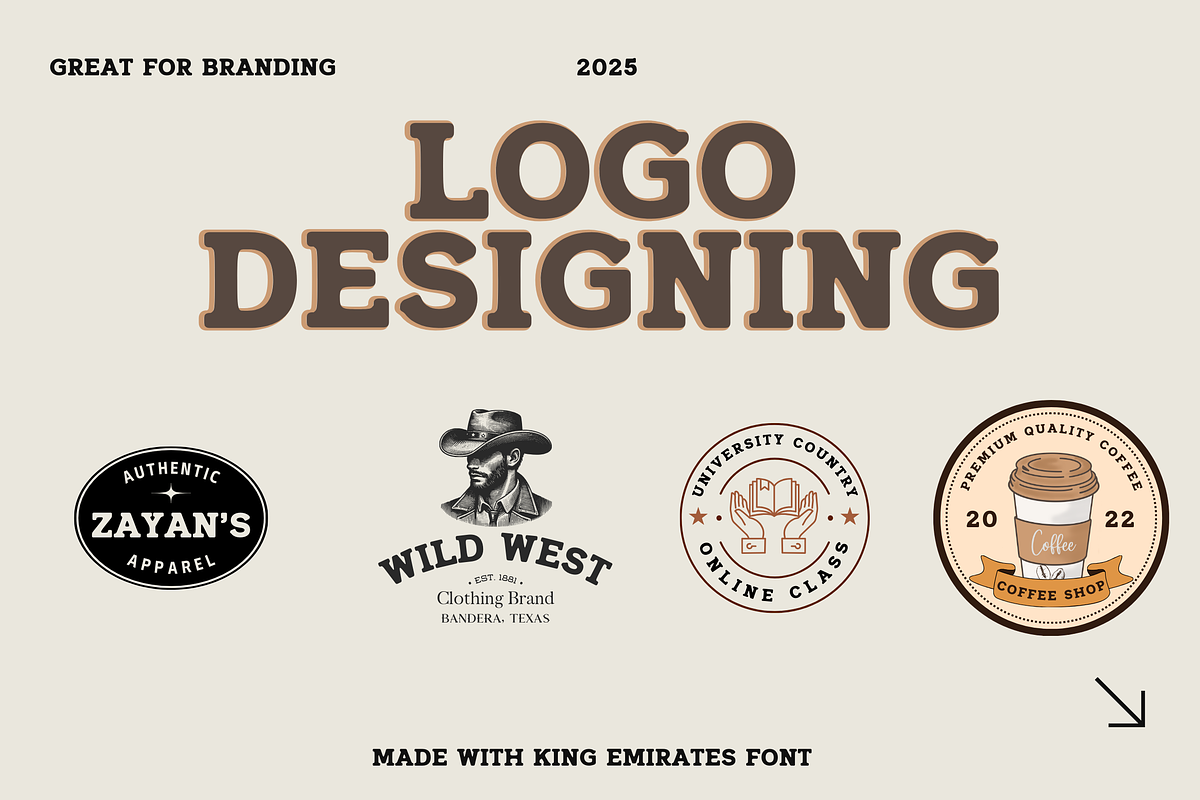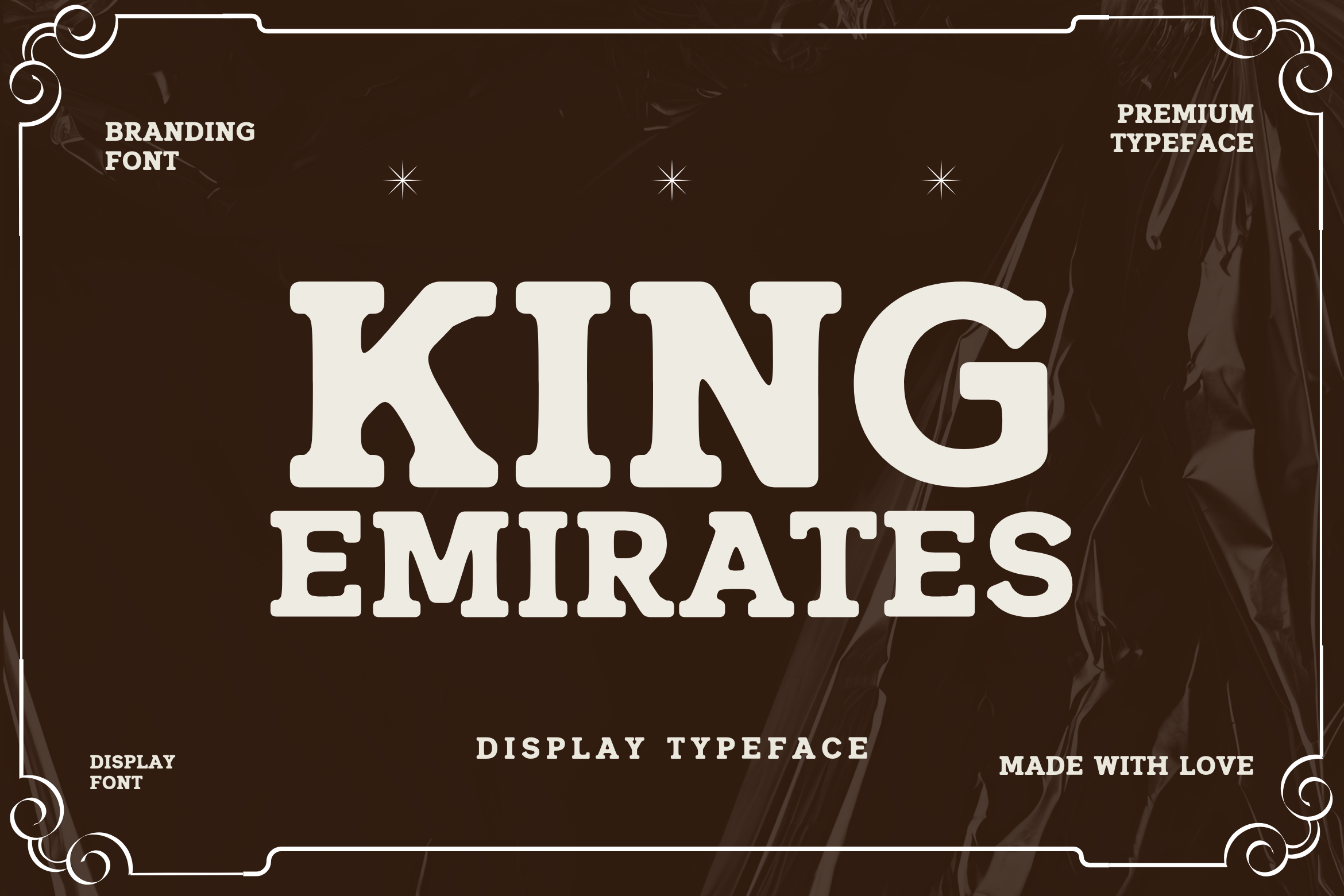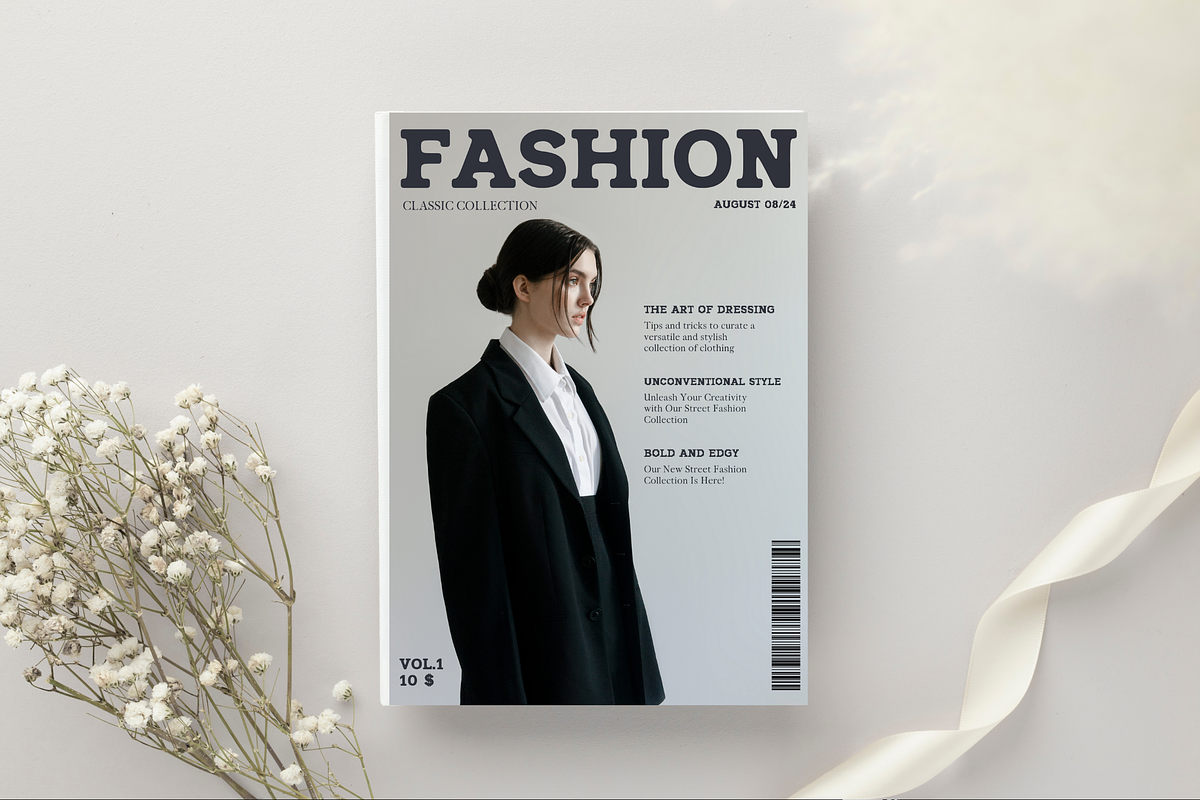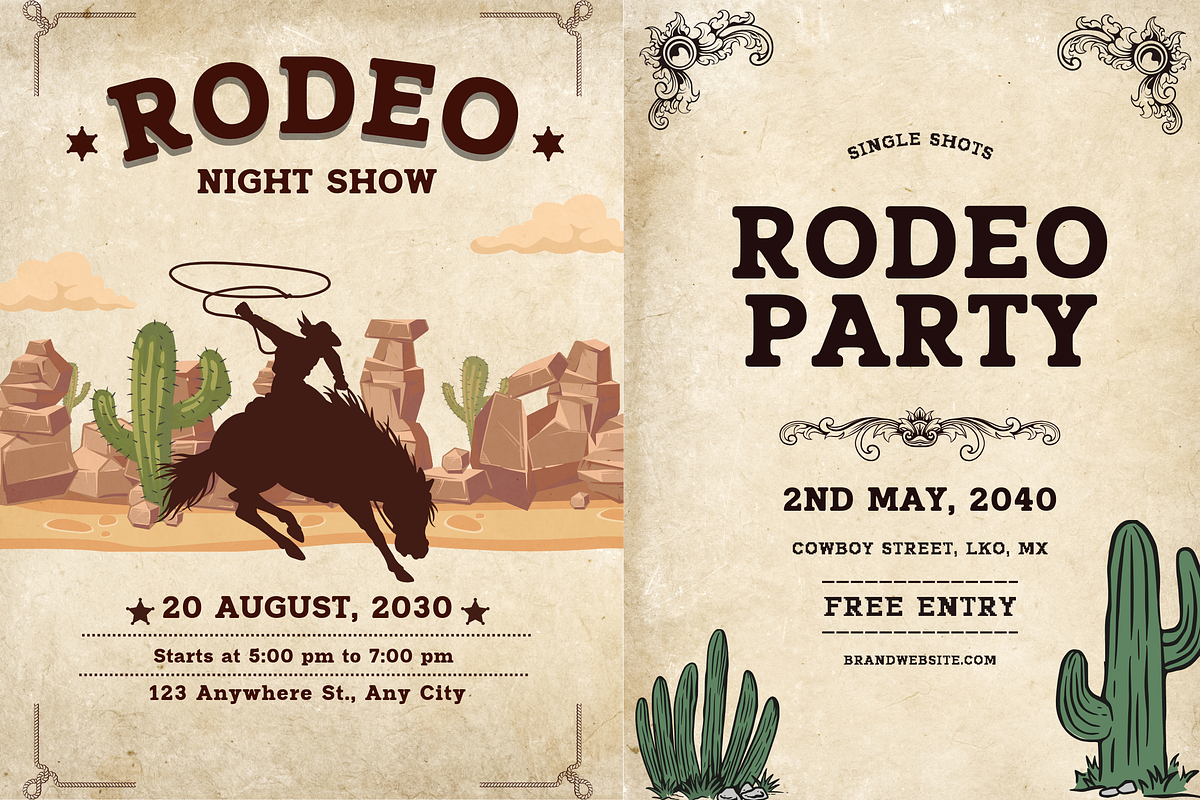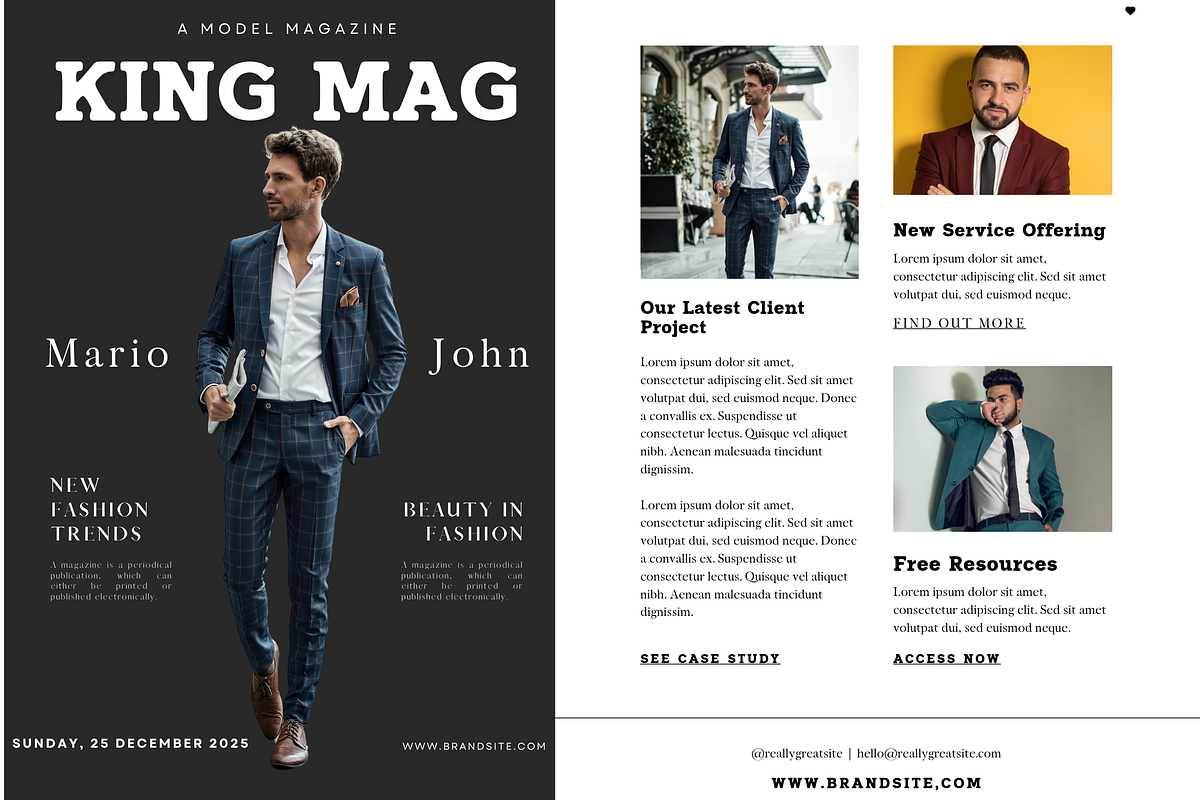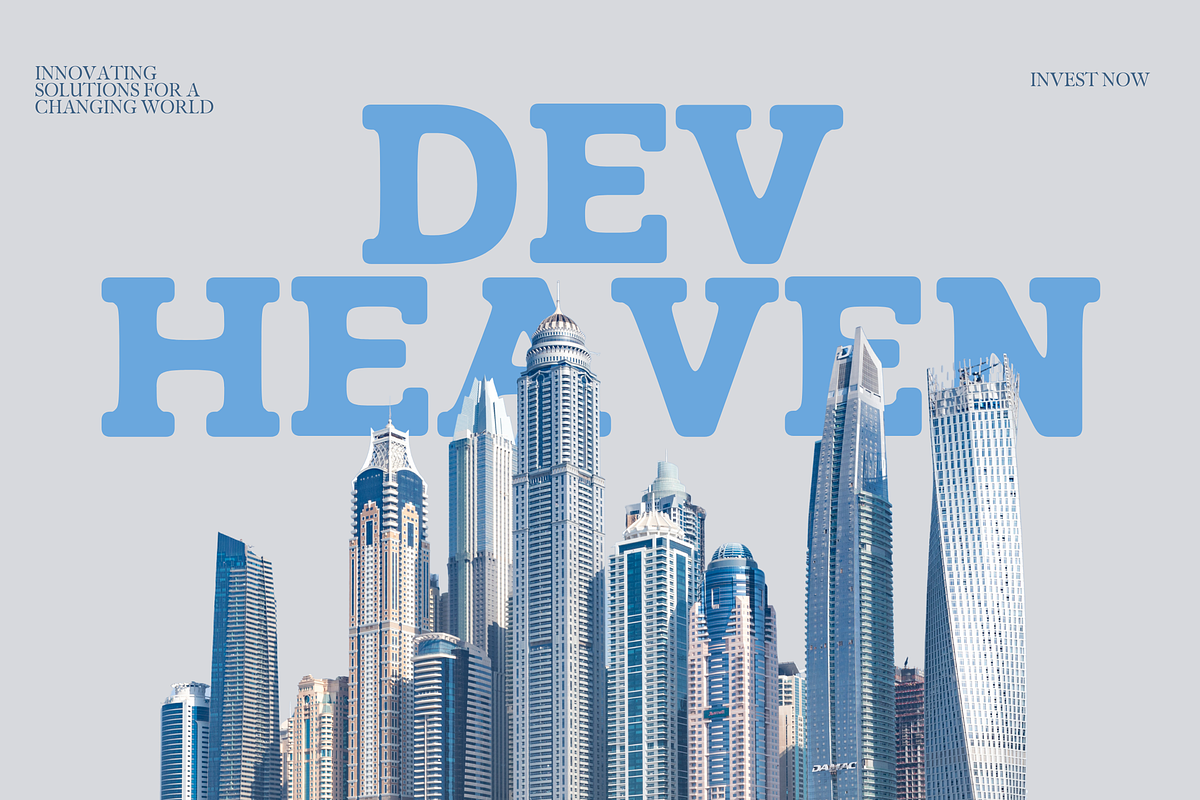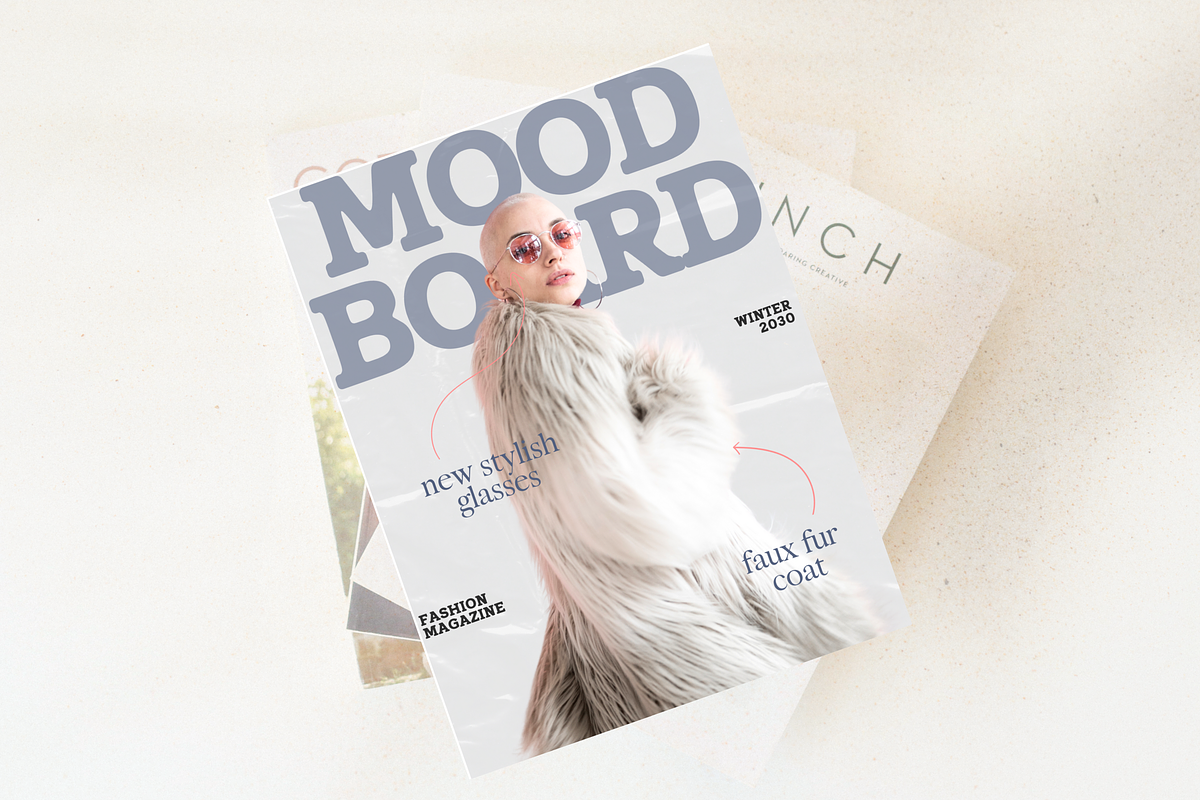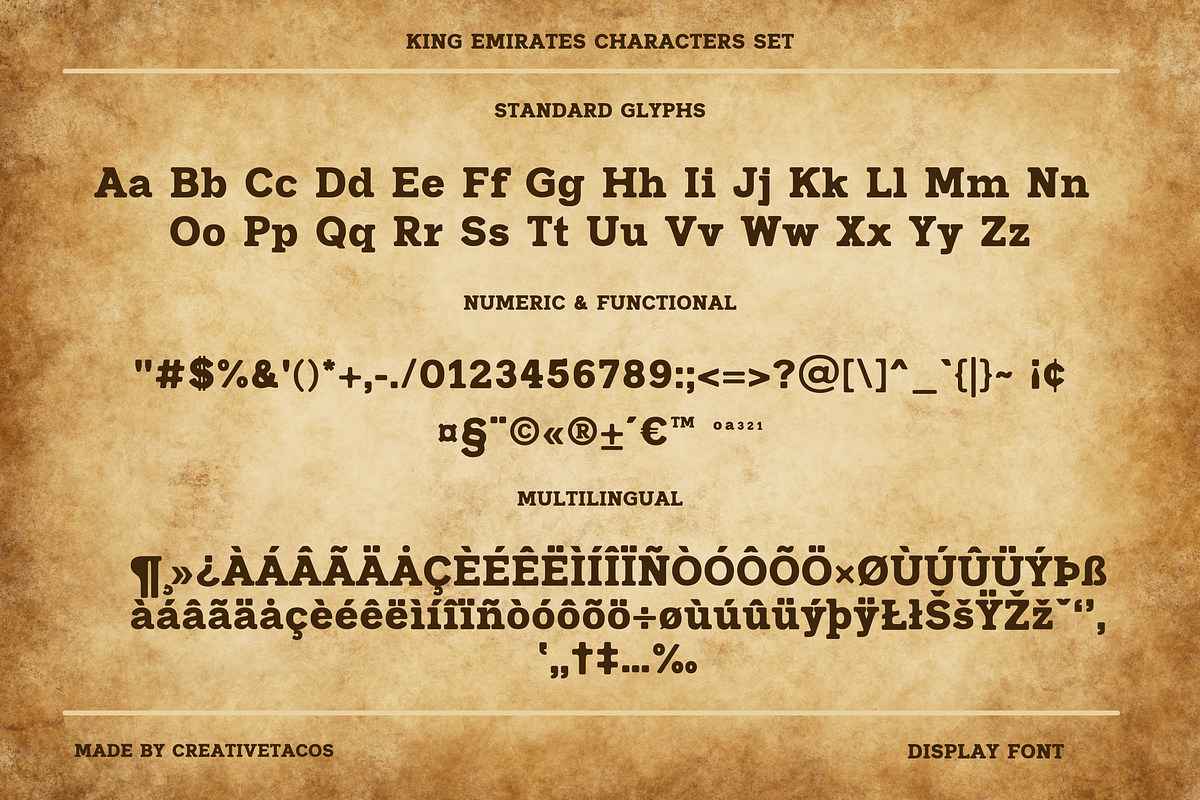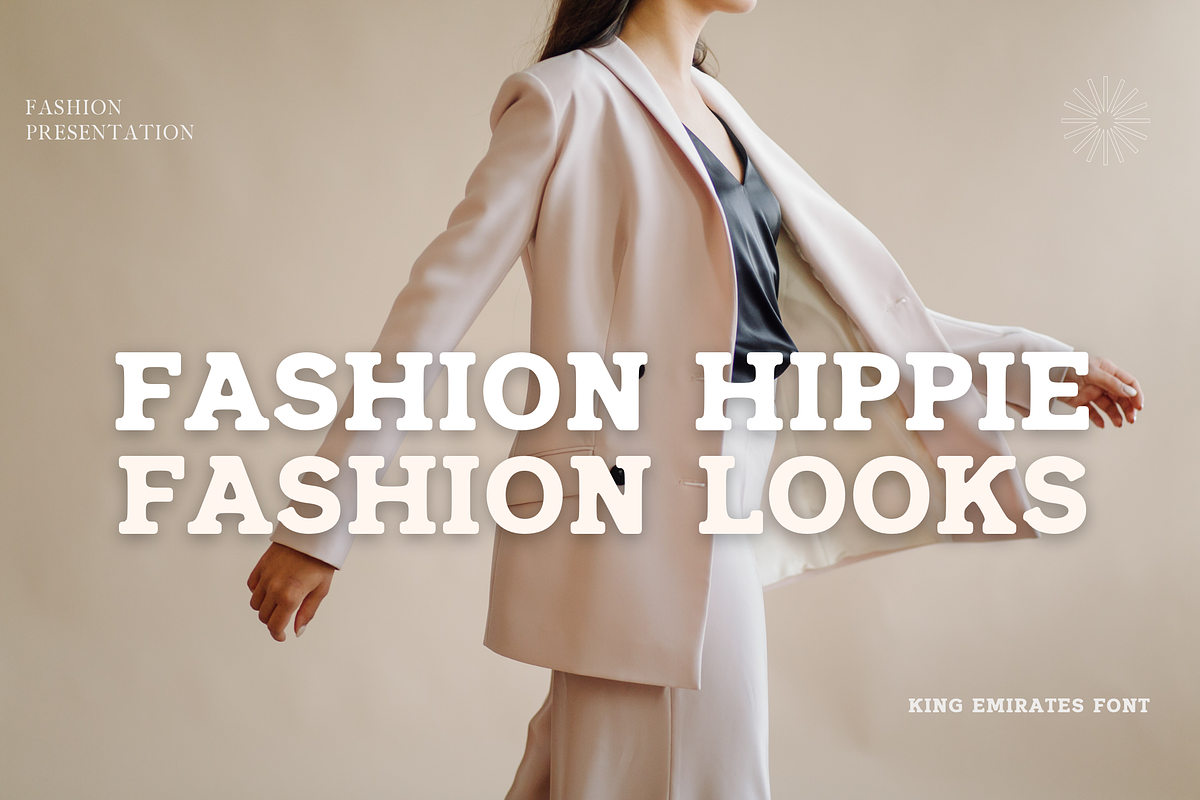
King Emirates Font
A premium slab serif font designed for sophisticated branding with vintage charm. KING EMIRATES combines robust letterforms with elegant proportions, creating a typeface that's perfect for luxury brands, hospitality ventures, and designers seeking to evoke heritage with a contemporary twist.
- Refined Slab Serif Design: Substantial yet elegant letterforms that convey stability and tradition
- Complete Character Set: Standard glyphs, numerals, functional characters, and extensive multilingual support
- Versatile Applications: Ideal for luxury branding, restaurant menus, hotel signage, packaging design, and vintage-inspired projects
- Distinctive Personality: Bold character with sophisticated details that maintain excellent readability
- Meticulous Construction: Carefully balanced proportions with attention to spacing and kerning
- Standard alphanumeric glyphs (A-Z, a-z, 0-9)
- Numeric & functional characters for comprehensive design flexibility
- Multilingual support with extensive diacritic marks
- Punctuation and special characters
KING EMIRATES FONT doesn't merely suggest luxury—it embodies it with thoughtful typographic details and a warm, aged aesthetic. Each character is crafted to maintain clarity while delivering the distinctive visual presence that defines premium display typography.
Whether you're creating upscale restaurant branding, hotel collateral, whiskey labels, coffee packaging, or heritage-inspired logos, KING EMIRATES Display Typeface delivers sophisticated results with timeless appeal.
Elevate your designs with the stately presence of KING EMIRATES Display Typeface.